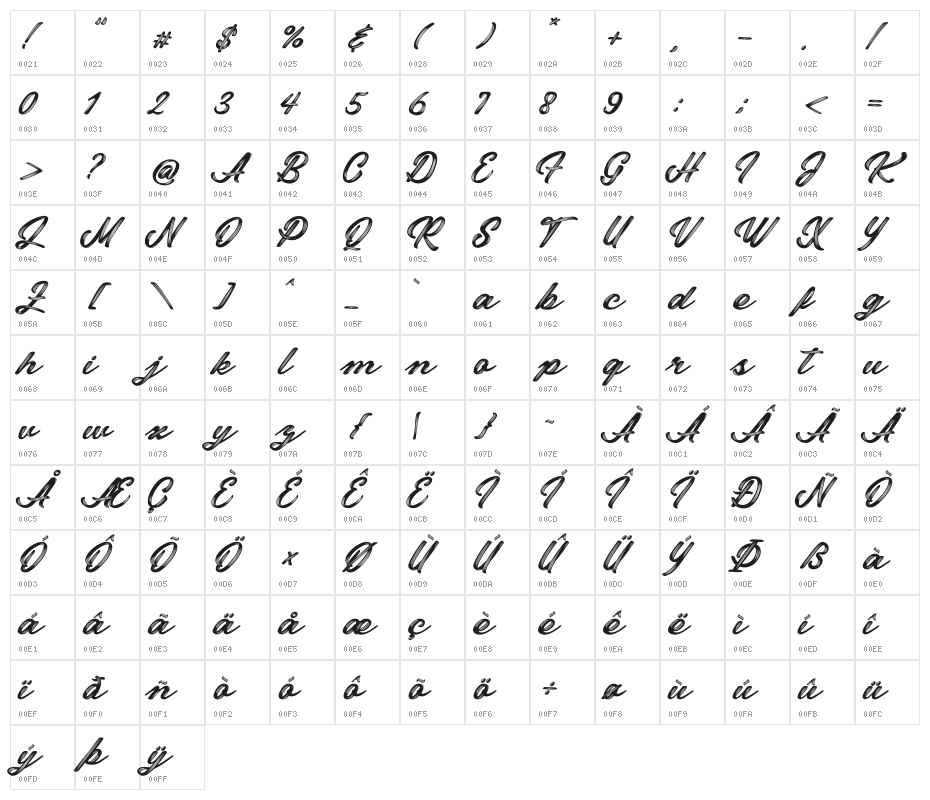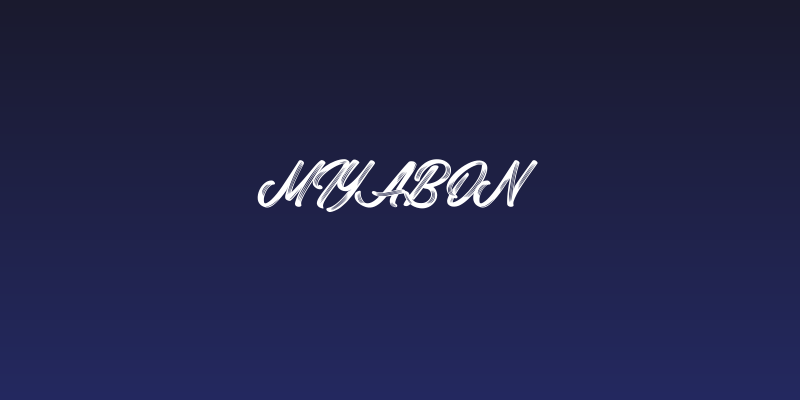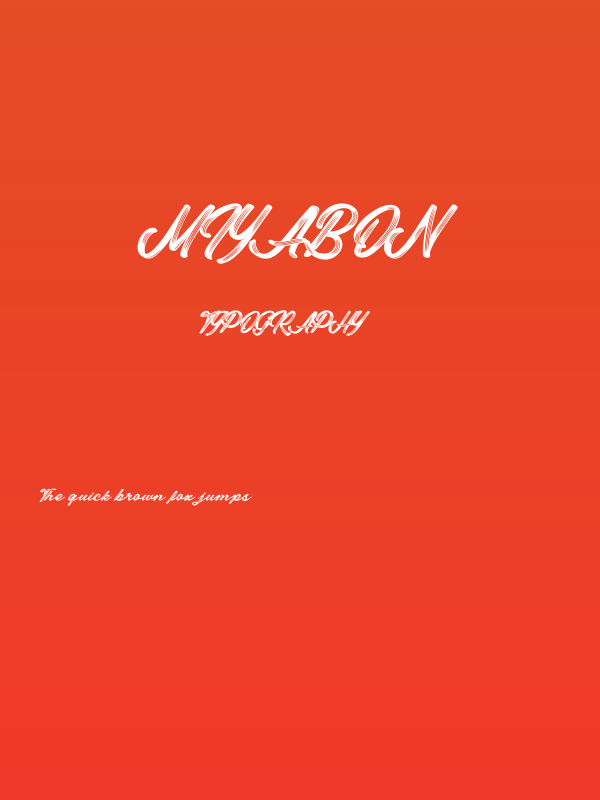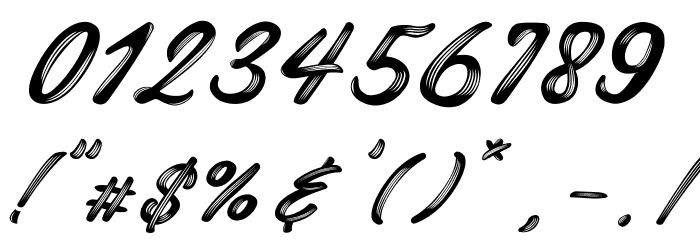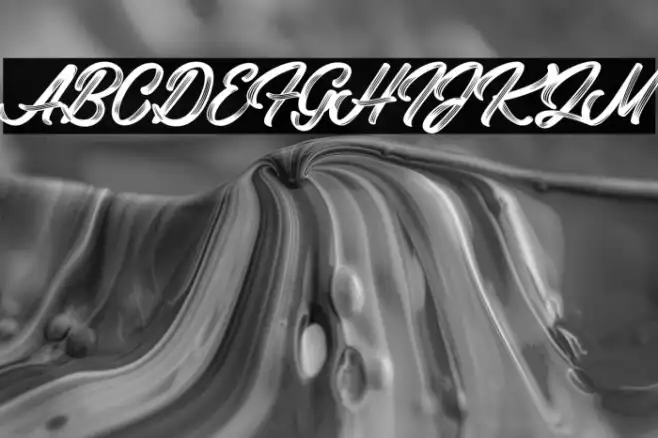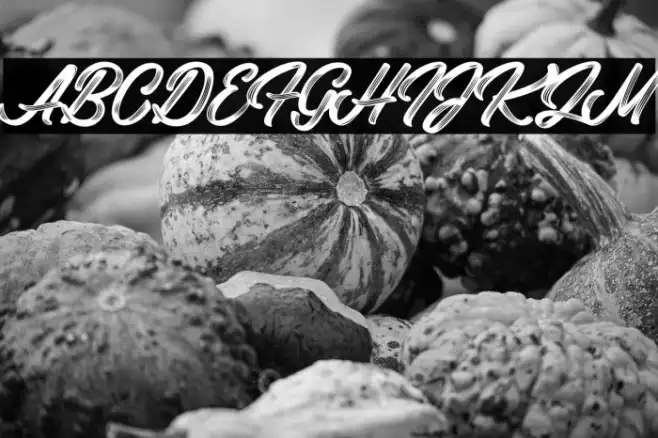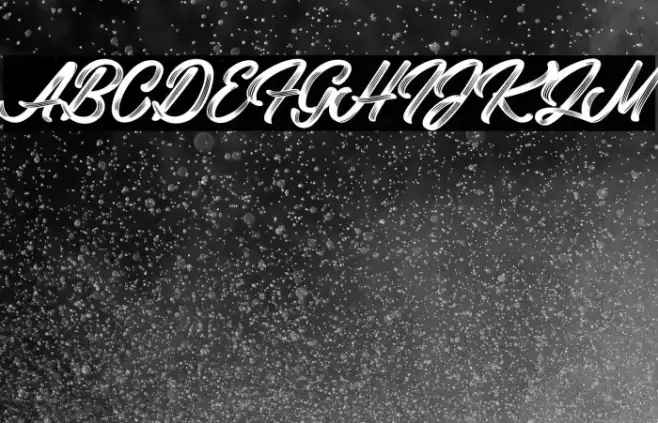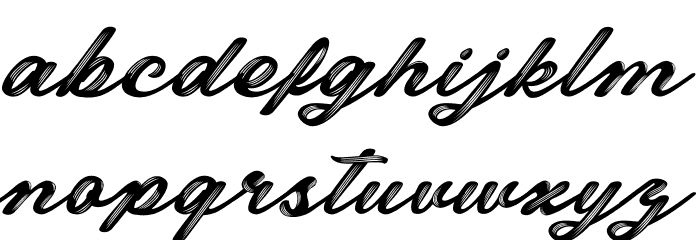
Miyabon Font
Miyabon Description
This font features a dynamic and flowing script style, characterized by its elegant and cursive letterforms. The strokes are bold and sweeping, with a consistent slant that gives it a sense of motion and fluidity. Each character is intricately designed with a high level of detail, making it suitable for decorative purposes. The uppercase letters are particularly ornate, with flourishes that extend beyond the baseline and cap height, adding a touch of sophistication. The lowercase letters maintain a cohesive look, complementing the uppercase with their smooth curves and loops. The numerals and special characters are equally stylized, ensuring a uniform appearance across all glyphs.
| Proposed Projects | Ideal for wedding invitations, branding, logos, and decorative headings. |